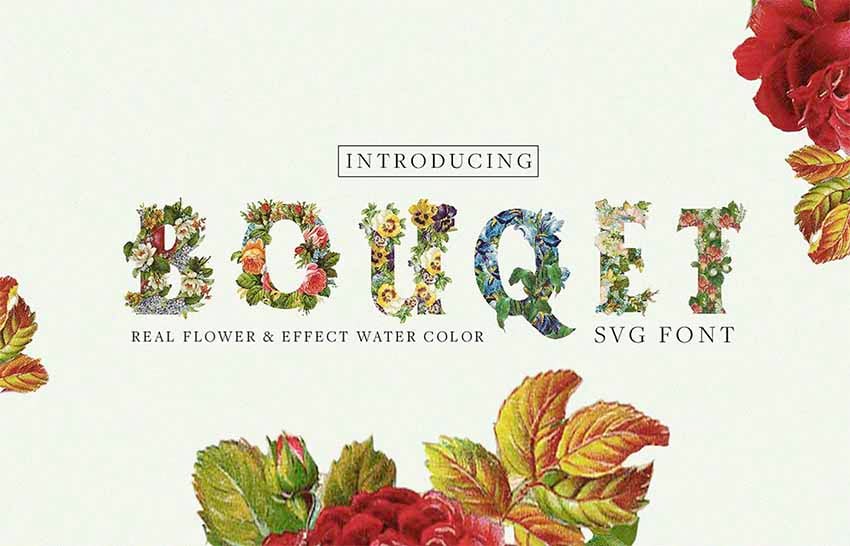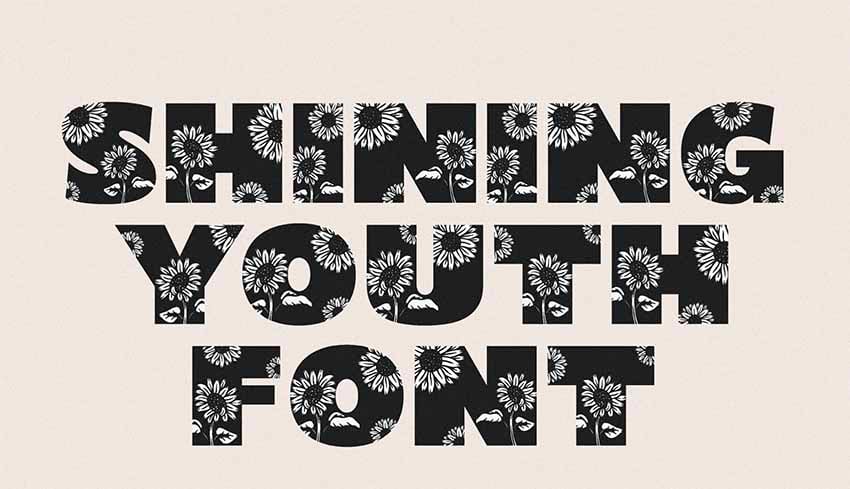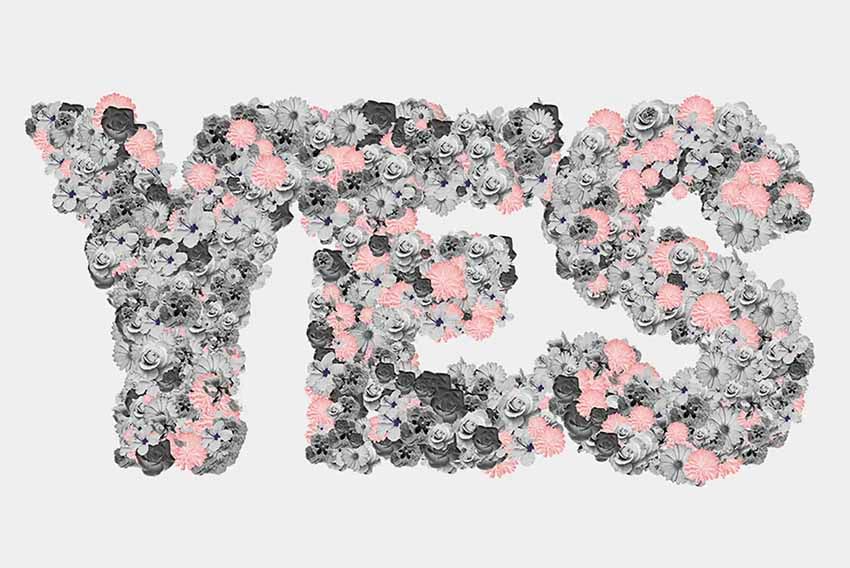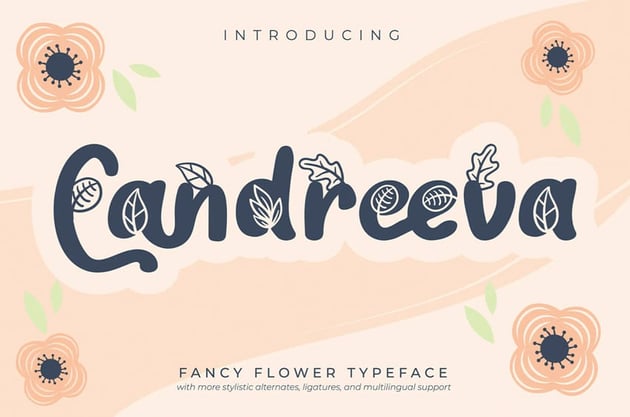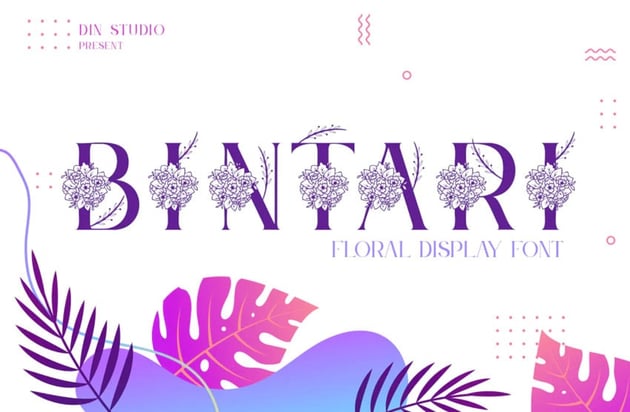
40+ Best Flower Fonts (Must-Have Floral Fonts for Spring)
Looking for the perfect flower font for spring? Let's take a look at some hand-drawn floral font designs from Envato Elements.
1. Adenium Flower Ornaments Font
Check out this elegant flower font. It has beautiful serif type mixed with these ornate flower illustrations. It would be great for titles and points of emphasis.
2. Fllorida Fancy Flower Font
This flower font is a bit more playful. Imagine it on a T-shirt or on fun packaging. You could print this on bags, boxes, and so much more.
3. Arnabelle Script Font With Floral Elements
This script font comes with a whole host of hand-drawn floral extras. It would be great for designing an ornate poster. Or consider adding your own hand-drawn elements too.
4. Flower Hand Drawn Display Font
This floral font could be such a cute choice for a spring cleaning font; use it to create DIY decor or to create invitations for an upcoming spring party.
5. Hello Wild Indie Flower Fonts
Isn't this floral font fun? Hello Wild Indie Flower Fonts incorporates the flower symbols in such quirky ways. Try it out in all caps, or stick to the curved lowercase letters. There are lots of possibilities.
6. Bahor Hand Made Flower Typeface
Make an elegant statement with these ornate letters. Bahor Hand Made Flower Typeface could be a great Happy Easter font, especially for something like a formal brunch or service.
7. Vignellya Fancy Flowery Fonts
Here's another playful font that you can download right now. Try Vignellya Fancy Flowery Fonts on a business card or T-shirt design. It would certainly command attention.
8. Wonder Floral Lettering
Wonder Floral Lettering has so many little details that it's definitely best at larger sizes. Try this one in different colors too, like green or even gold tones.
9. Candreeva Fancy Flower Font
Here's another playful take on a flowery aesthetic. The leaves here could work well for other seasons too. Try this in reds or browns for a fall look.
10. Flower Font Symbol Block Typeface
Prefer a bold, blocky font? Then you might prefer this graphical take on a flower font. It has so many different nature-themed cutouts to work with.
11. Bintari Floral Display Font
Here's another beautiful display font that mixes a stylish serif with ornate floral illustrations. Use it as a monogram or to create stand-out titles.
12. Flóra Delicate Floral Font
How about a thinner font with lots of long, sweeping lines? This is such an elegant yet ornate choice. Try isolating the floral elements to one letter or use them all.
13. Carolina Monogram Font
Monograms can be a perfect mark for a variety of projects. Try these beautifully drawn letters on their own, or combine them for a larger mark.
14. Spring Handwritten Font
Looking for the perfect Easter bunny font? Why not try a fun, floral look like this one? Florals can work so well as a spring or Easter font. Give it a try today.
15. Picnic Caps Spring Font
This is such a fun, whimsical font! It has such fun spring vibes and would be an excellent choice for a number of seasonal projects.
16. Dellina Monogram Flower Font Text
This spring font alphabet has so many beautifully designed characters to admire. Try out each of the letters or try pairing them with another font.
17. Snowy Floral Color Font
Here's a different take on a floral font. It has some wintry inspiration, yet still has lots of beautiful, flowery elements to work with. It could look great as a drop cap too.
18. Garden Floral Romantic Font
Isn't this floral font cute? The hand-drawn look here is really clear, and it makes for a welcoming, informal aesthetic. Try this for book covers, decor, and much more.
19. Dont Worry Hand Drawn Flower Font
Here's a different take on a similar aesthetic. There are lots of intersecting lines that have a twig or vine-like aesthetic, and all those cute flowers are mixed in.
20. Hayme Monogram Font
Prefer a curly floral font? This one is perfect for monograms, but you can also use many of these decorative letters together.
21. Honey Beezy Spring Bee Font
Here's another fun, spring font that could work great as an Easter bunny font too! It's got such a quirky, whimsical aesthetic that's perfect for springtime.
22. Spring Garden Beautiful Handwritten Font
This pretty brush font also comes with a number of flower doodles you can use in your design project. It's a perfect choice if you fancy a hand-drawn look.
23. Satine Floral Display Font
Take a look at the ornate flower designs in this spring font alphabet. There are so many beautiful details to admire here. Use it as a monogram or to create key words.
24. Tall & Tiny Font Duo
These pretty letters have such an indie flower font aesthetic. The thin lines have organic jitter to them, which really made the hand-drawn vibe believable.